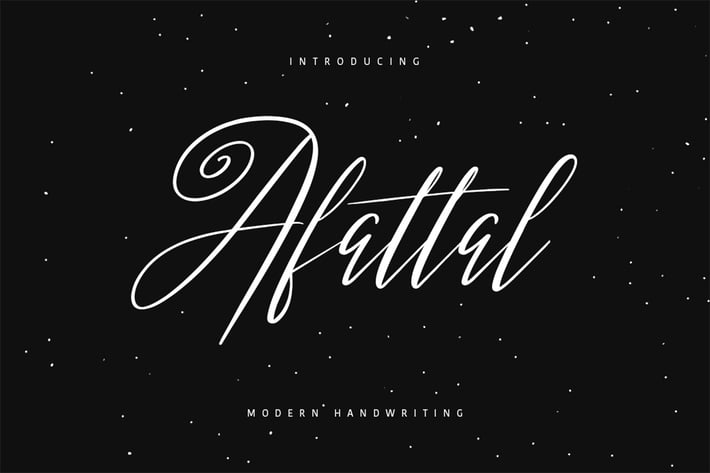
Afattal Typeface
Give your designs an authentic handcrafted feel. "Afattal Typeface" is perfectly suited to signature, stationery, logo, typography quotes, magazine or book cover, website header, clothing, branding, packaging design and more.